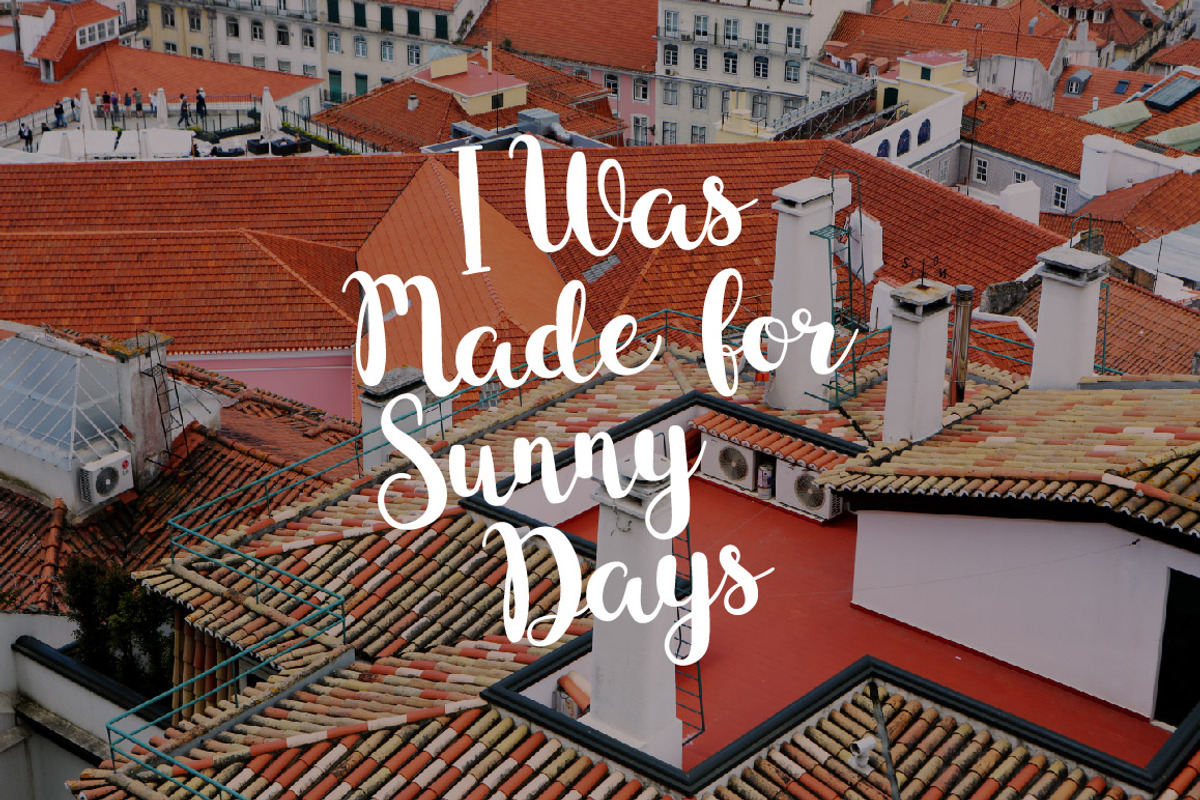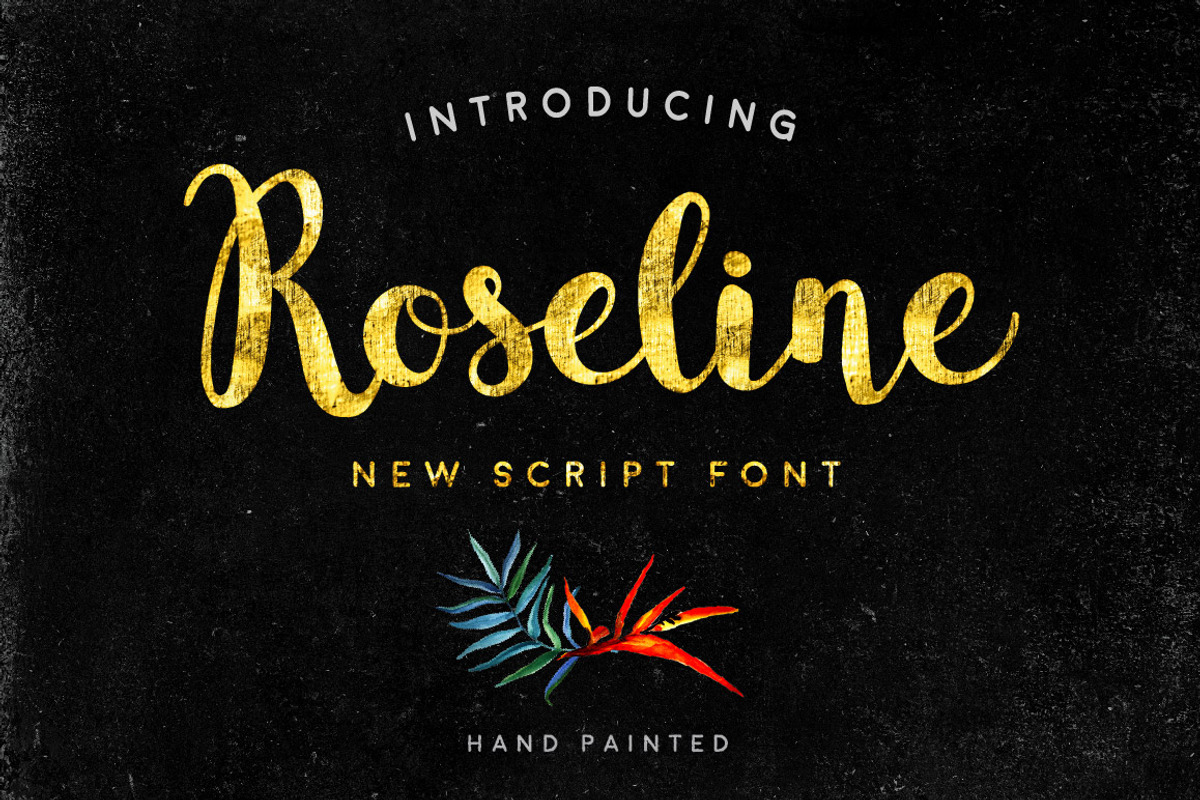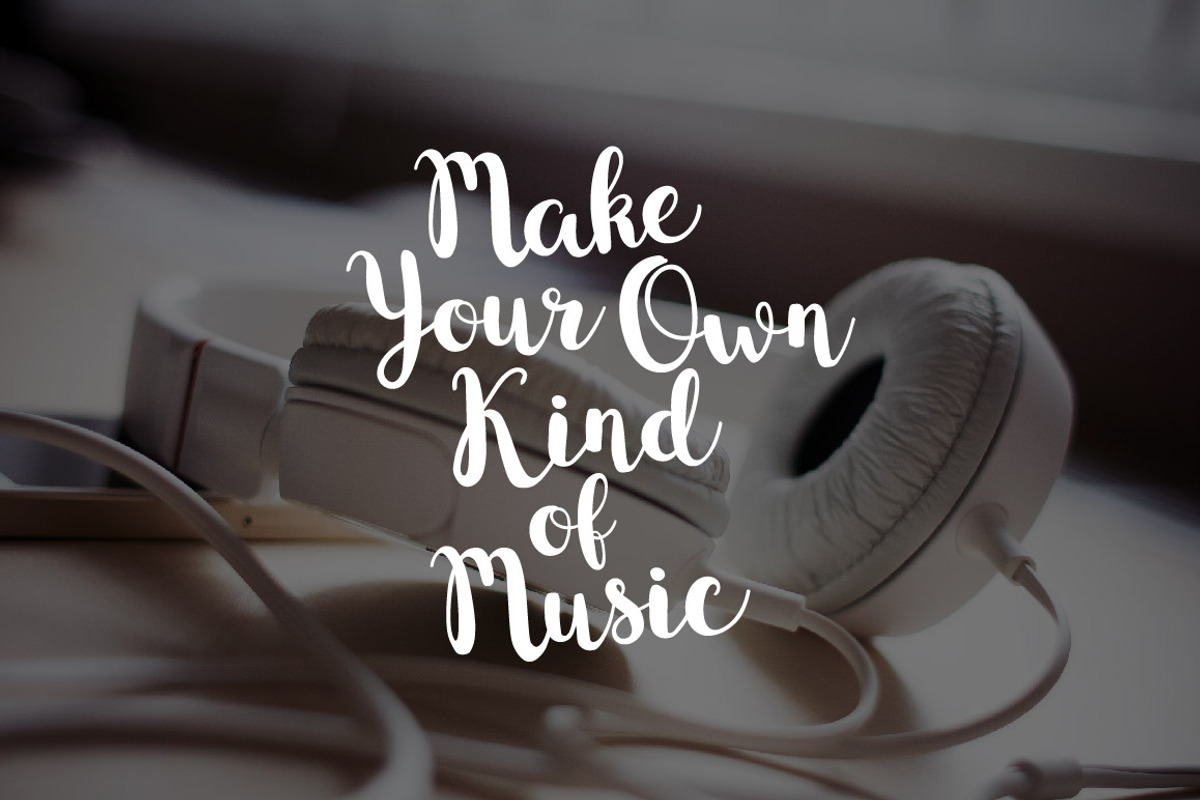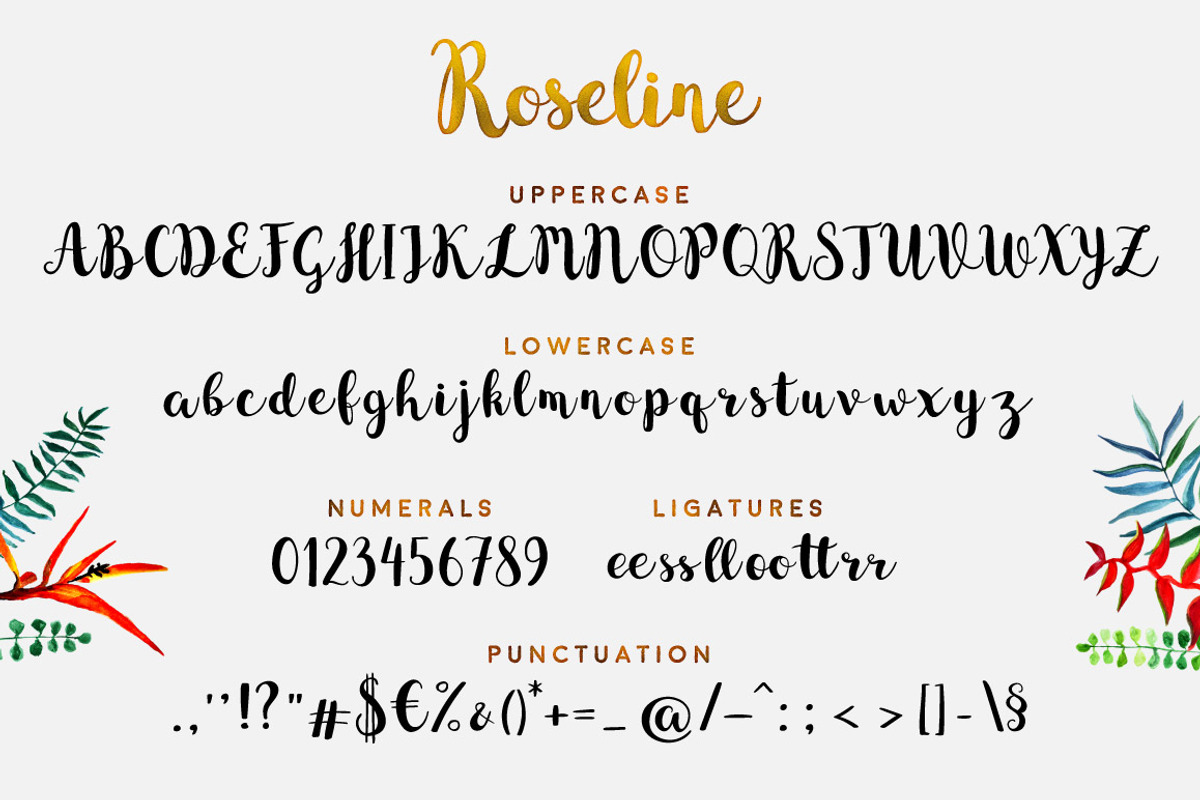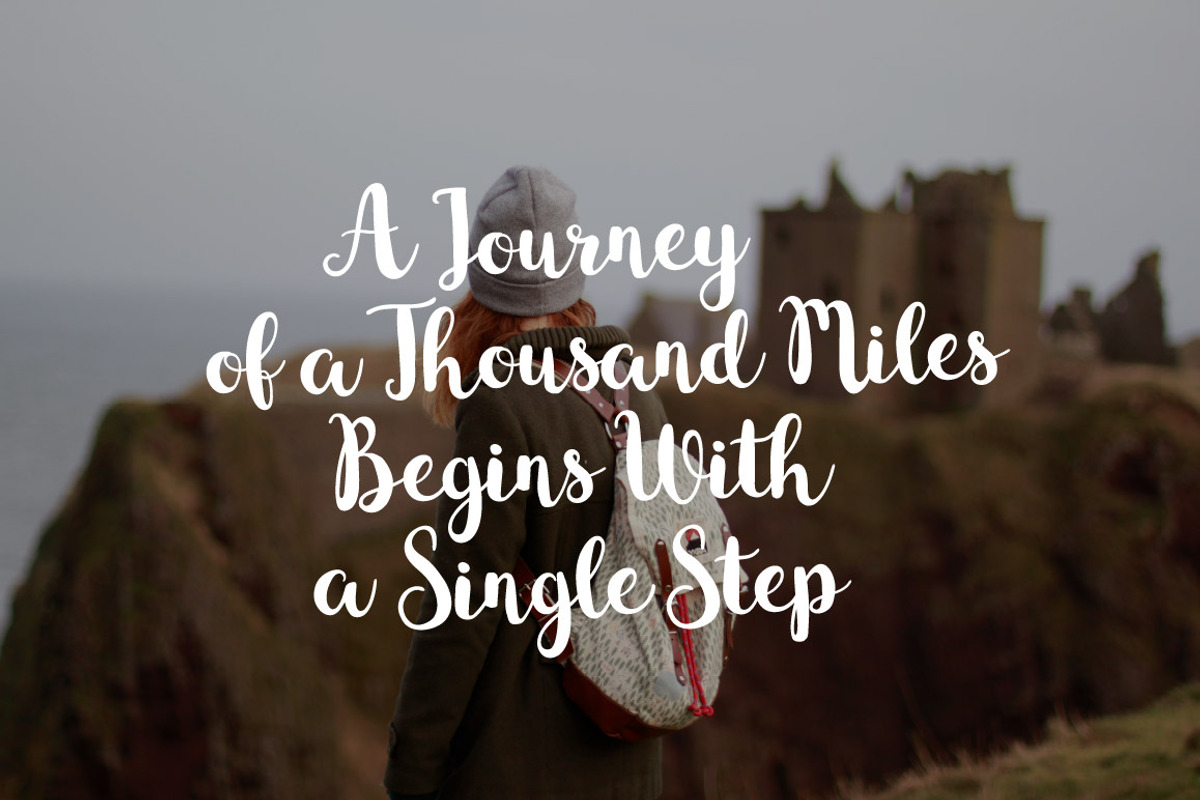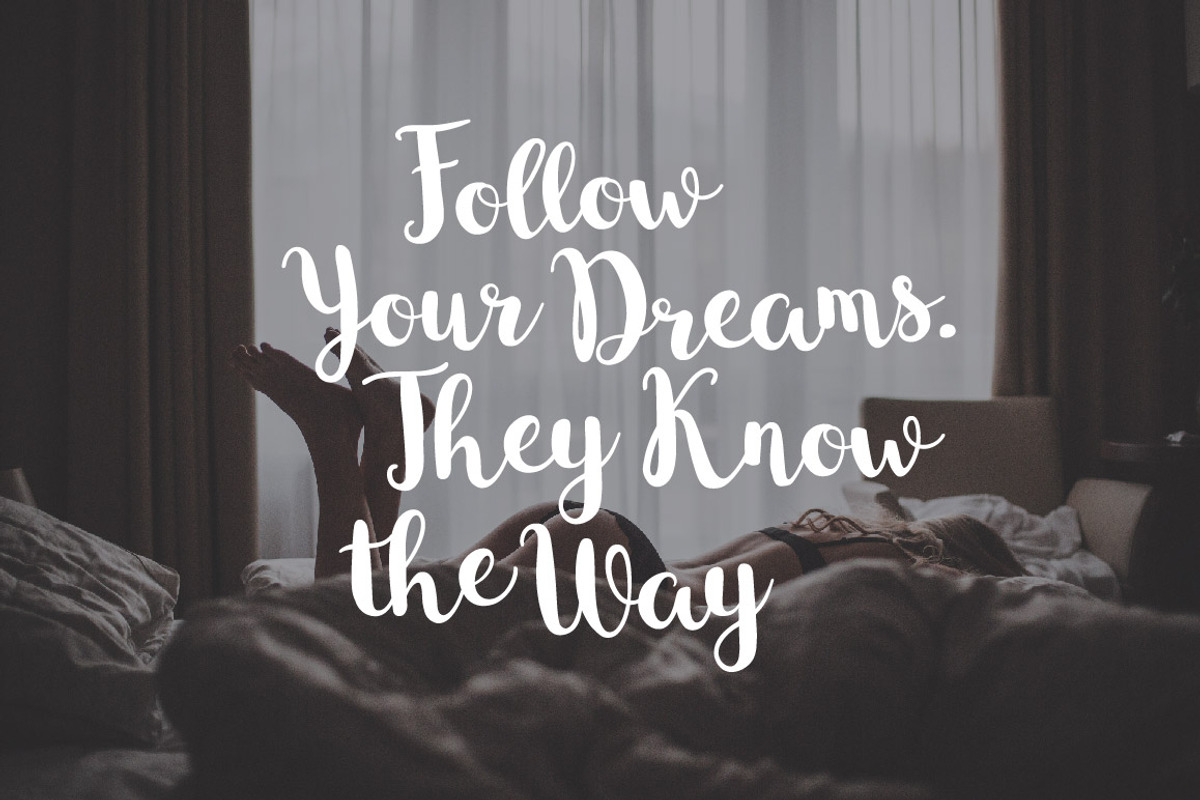
Roseline Font
Roseline Font by doffdog is a font selected for branding, posters, packaging, typography.
- Roseline comes with upper and lowercase characters, punctuation, numerals and ligatures.
Why Roseline Font is worth a look
Roseline Font by doffdog fits naturally into Branding, posters, packaging, typography.